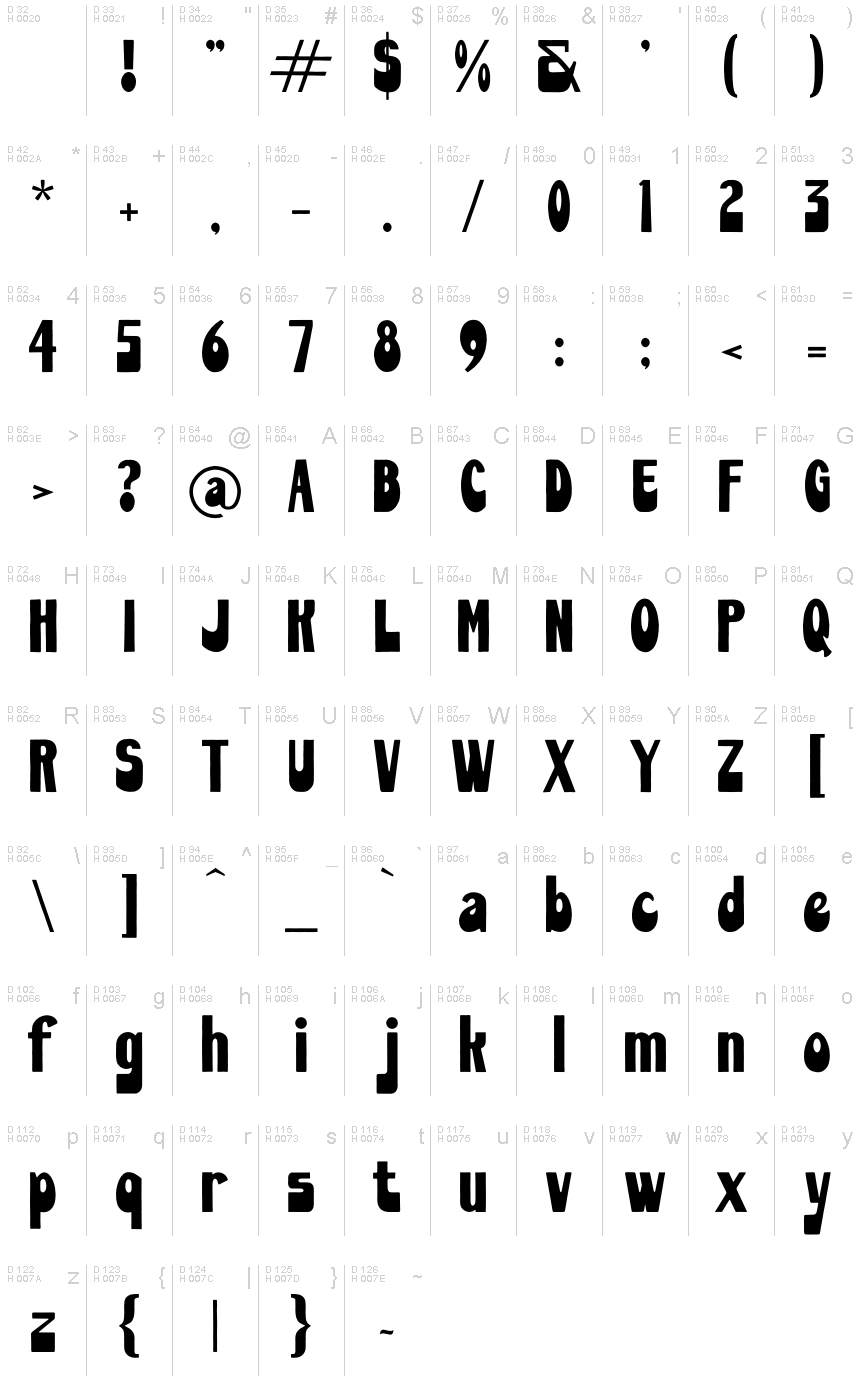
Jakesmith
Jakesmith, a captivating display font crafted by Storytype Studio, exudes a delightfully groovy and bold aesthetic. With its condensed width, this font commands attention, lending an air of retro-inspired charm and modern flair. The distinctive letterforms, punctuated by playful curves and sharp edges, create a visually striking and memorable impression, making Jakesmith an exceptional choice for a variety of design applications.
The bold, condensed nature of Jakesmith makes it a versatile option for attention-grabbing headings, impactful logos, and eye-catching branding. Its dynamic personality lends itself well to creative projects, such as album covers, event posters, and packaging design, where a bold and distinctive typographic statement is desired. Jakesmith's unique character also makes it a fitting choice for editorial layouts, signage, and any design where a touch of retro-inspired style is sought.